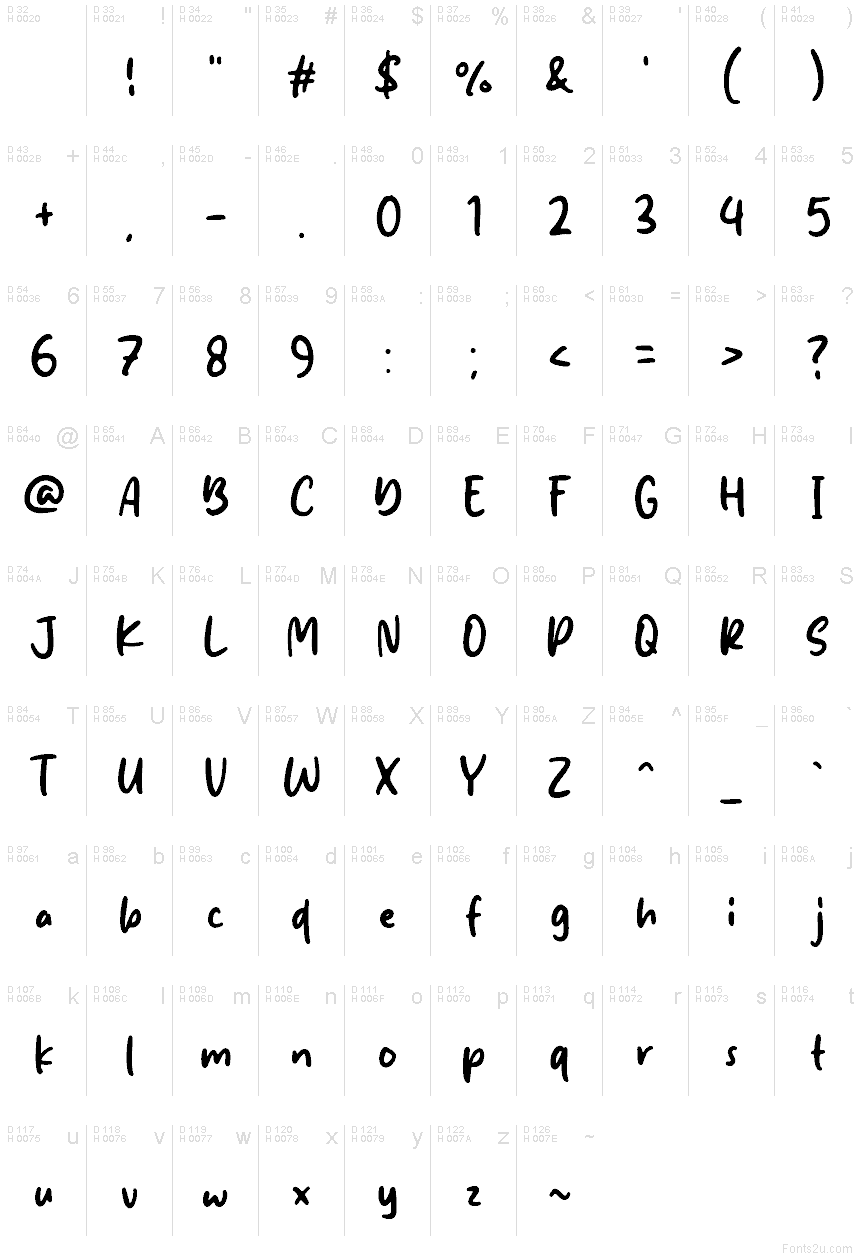
Simple Thursday
Simple Thursday font by MJType is a contemporary handwritten font with a modern aesthetic. The letters showcase a casual, smooth flow, delivering an overall relaxed feel to the script. The uniformity and readability of each character make this free handwritten font ideal for many creative tasks.
Use Simple Thursday to craft branding projects, product packaging designs, promotional ads, magazine or newspaper headings, books covers and titles, banners and billboards designs.